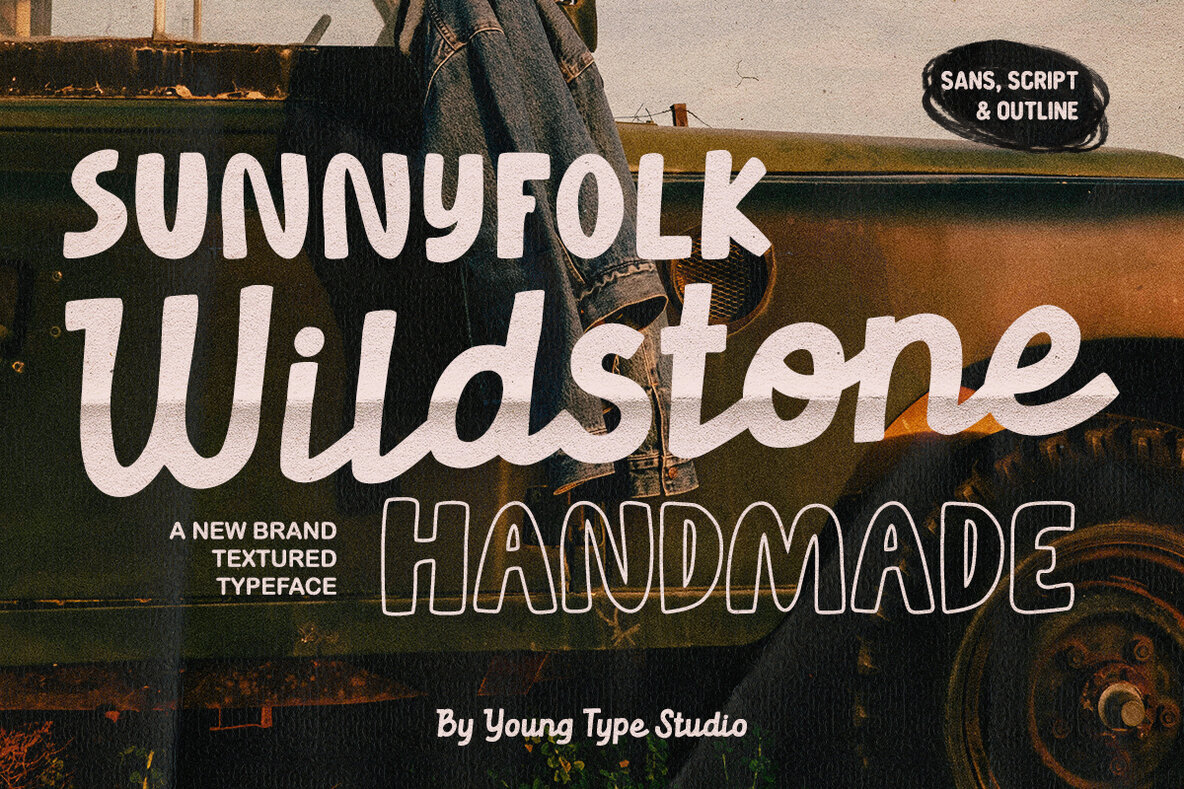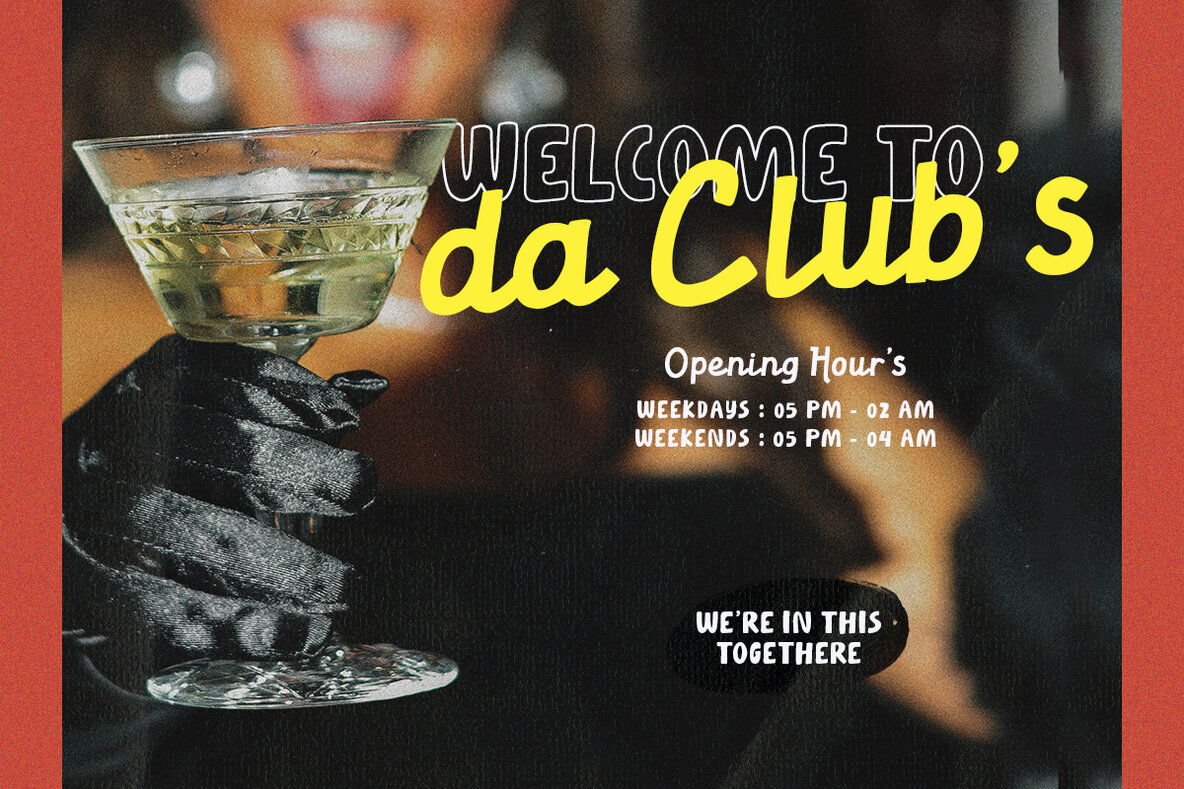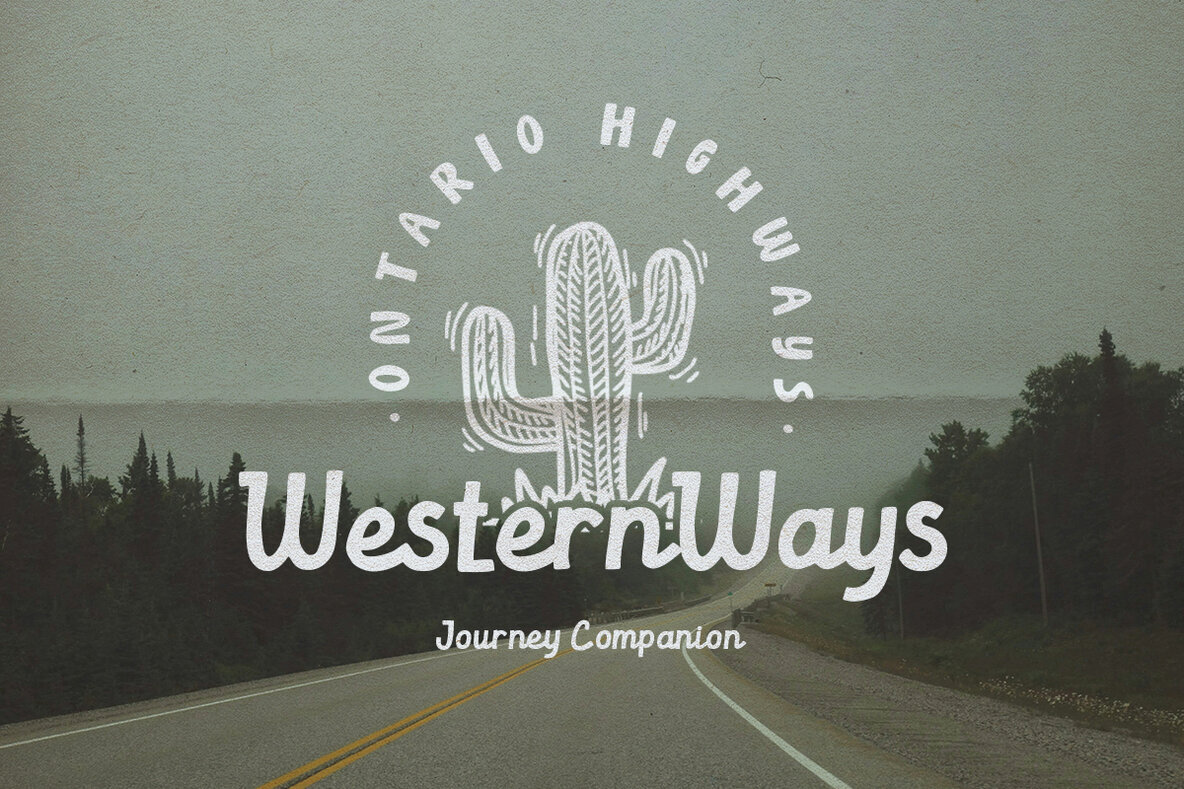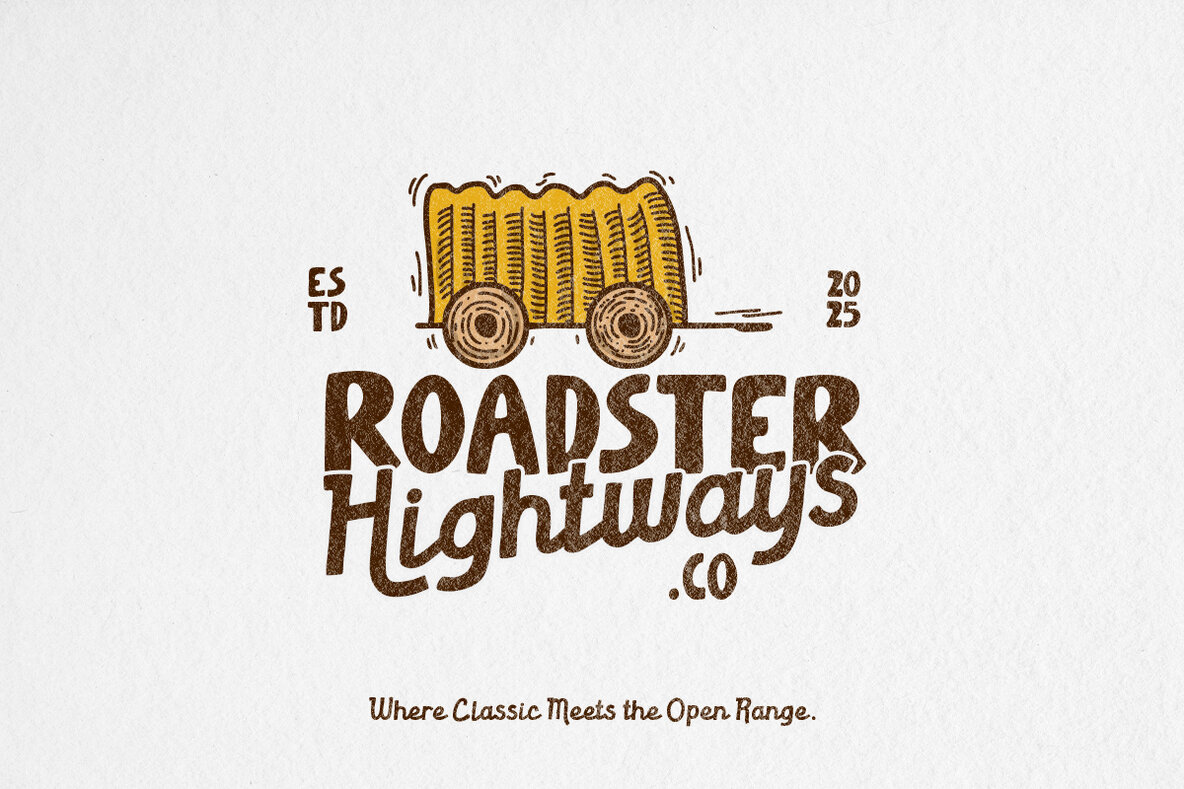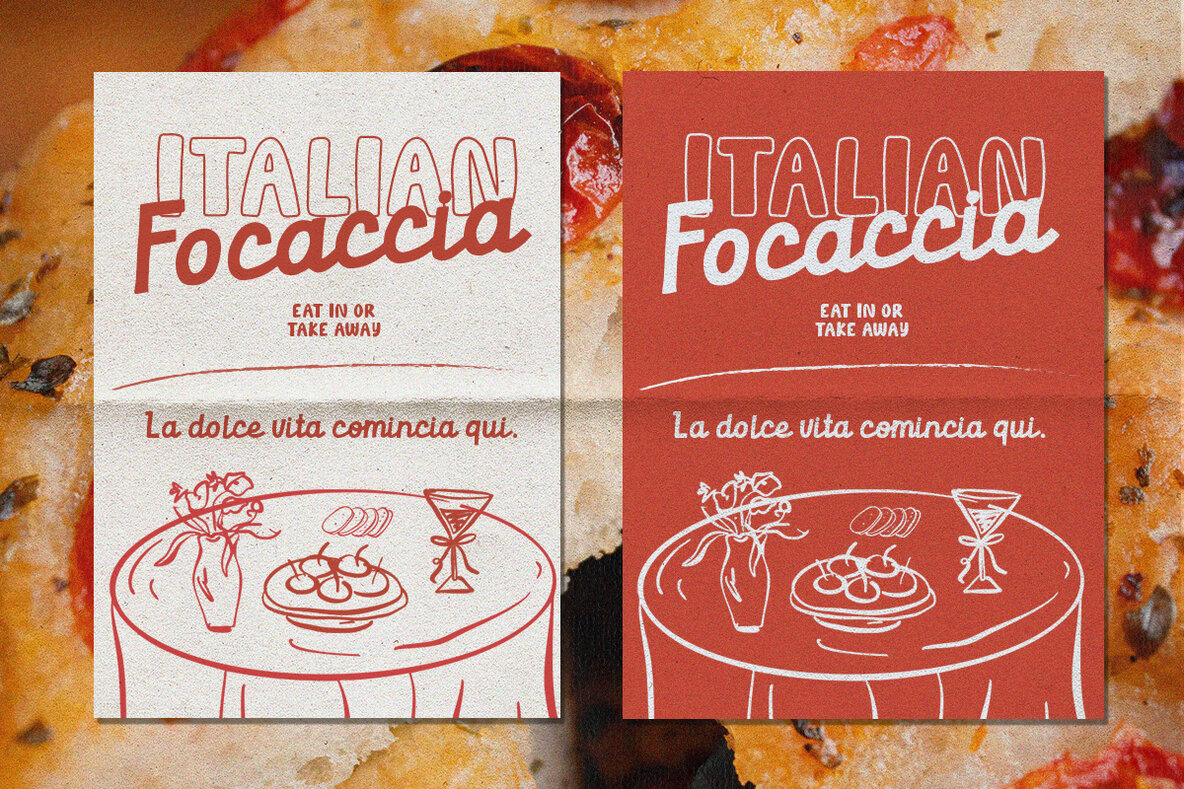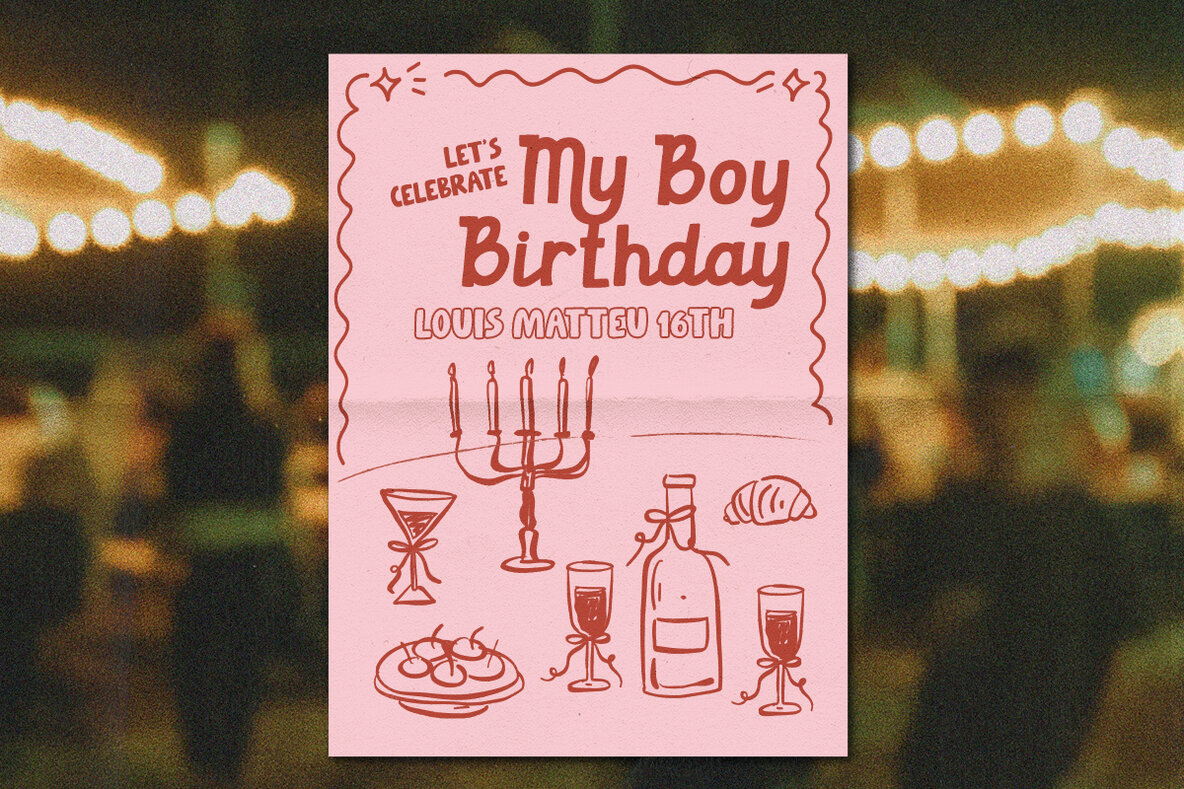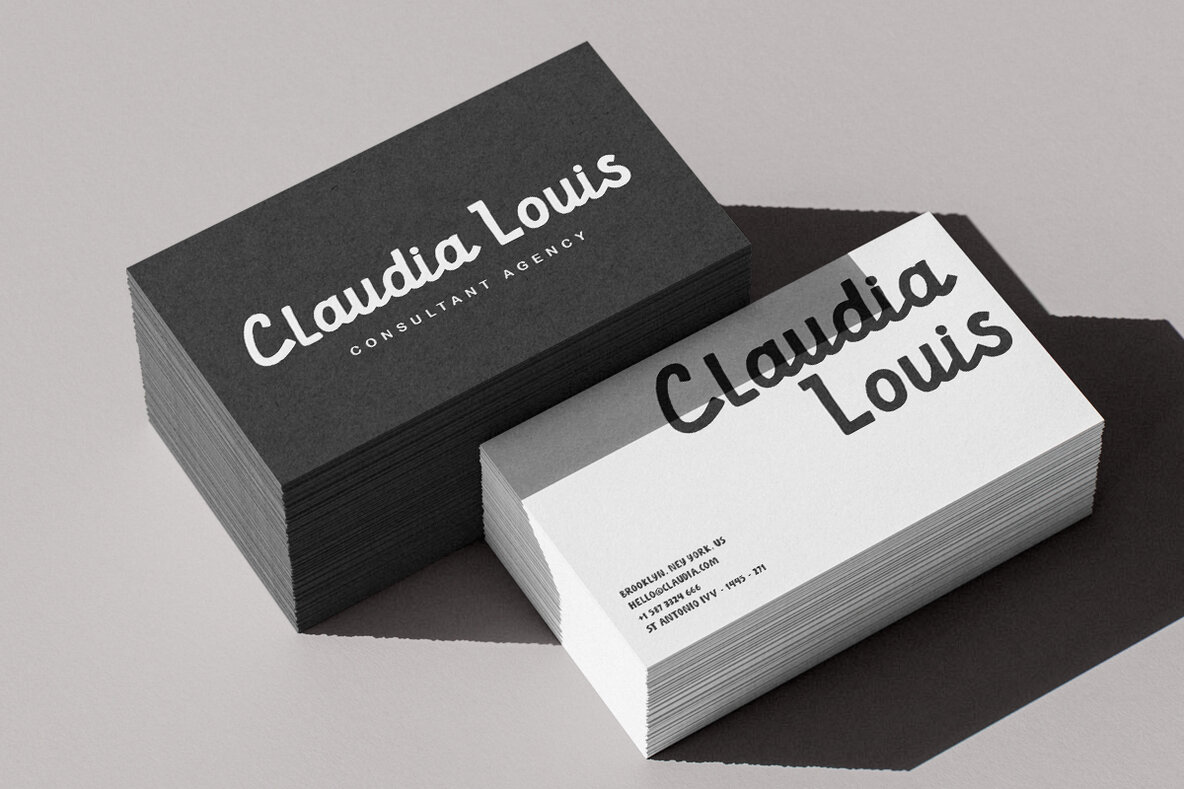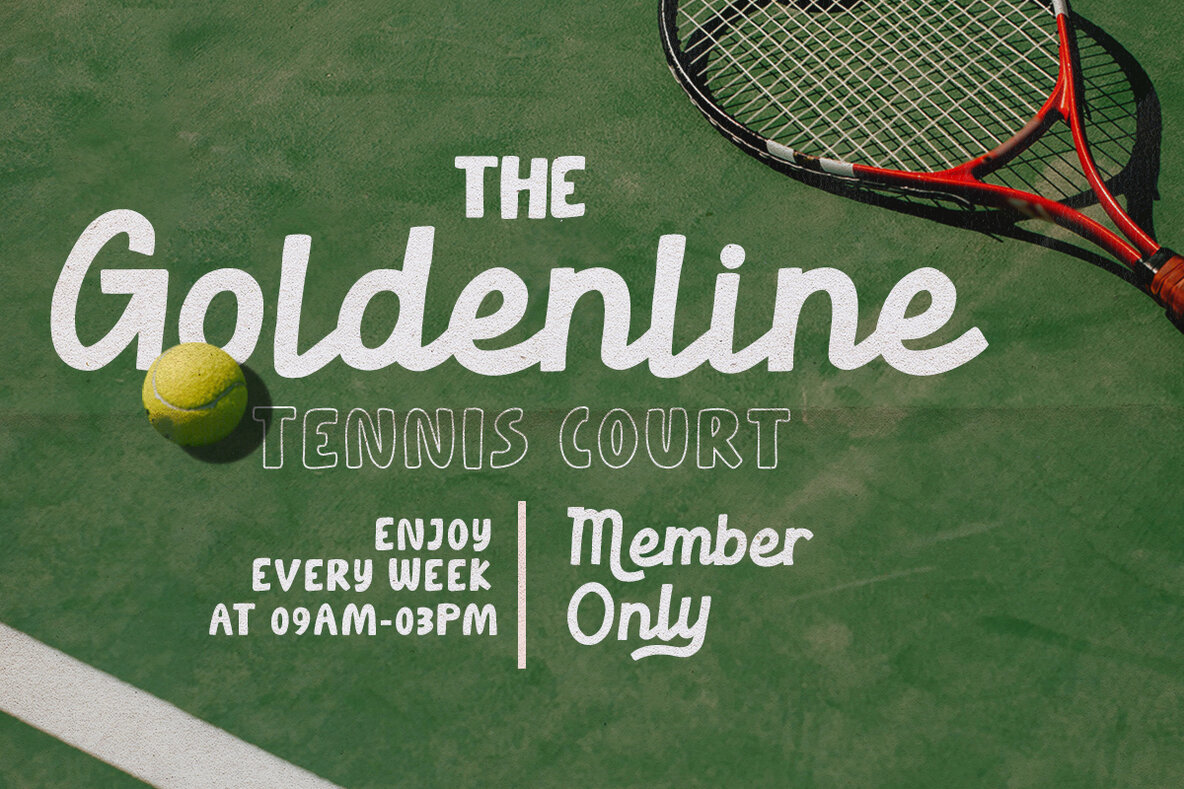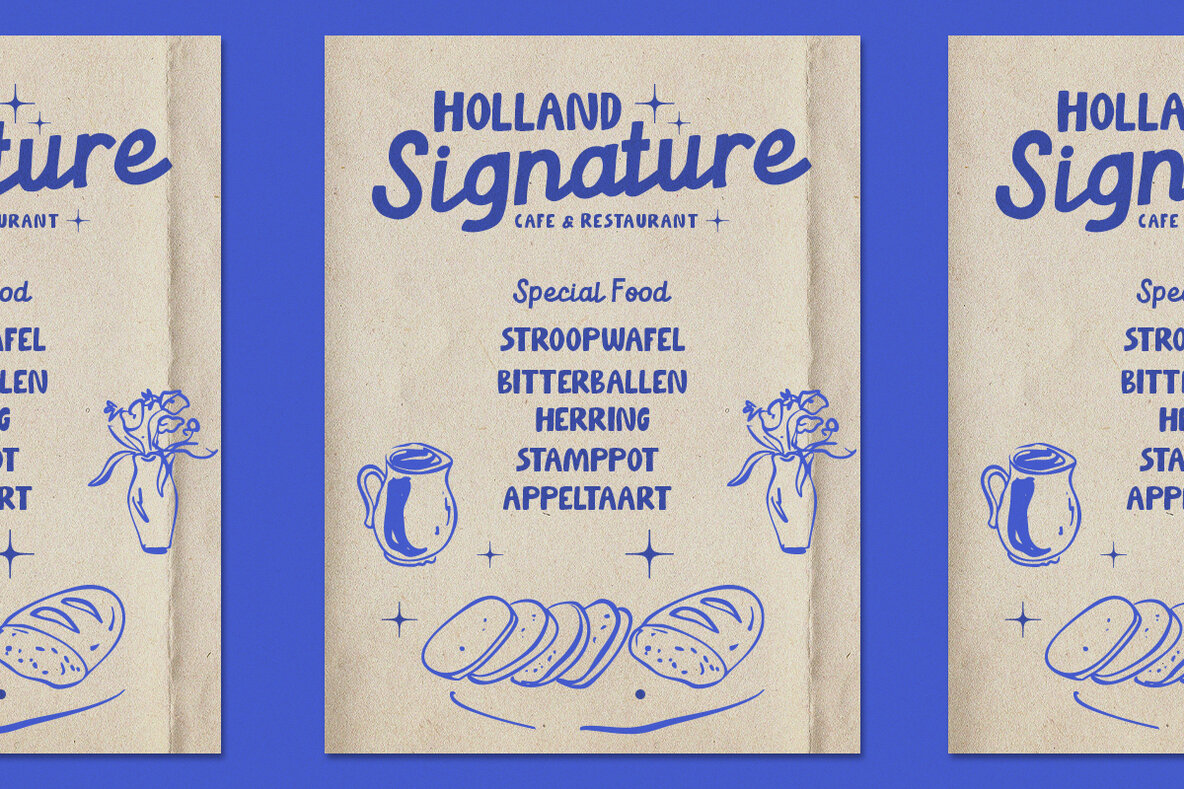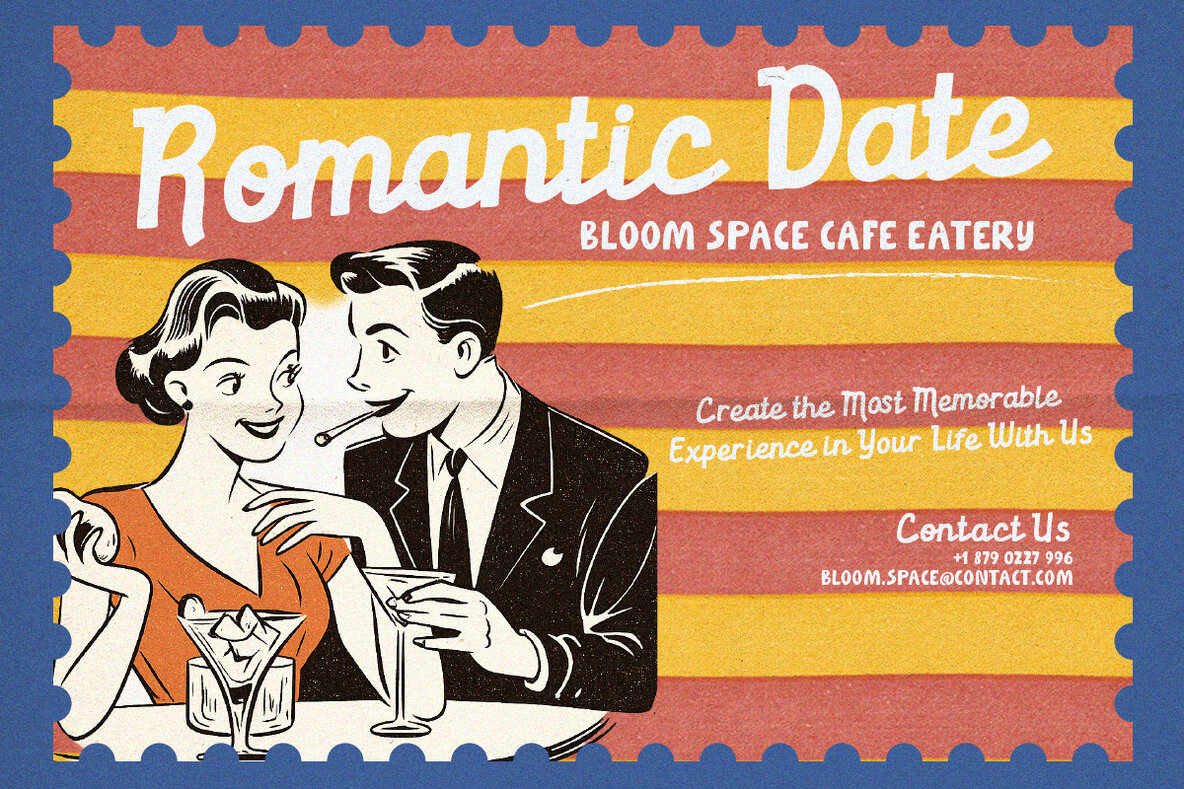
Sunnyfolk Wildstone Font
Sunnyfolk Wildstone is a bold, handmade, and textured typeface from Young Type Studio. It stands out for its rustic and friendly aesthetic, making it ideal for vintage or outdoor-themed branding. This typeface includes a flowing, chunky Script style, seen in 'Wildstone', a complementary rounded bold Sans style, exemplified by 'SUNNYFOLK', and a casual Outline style showcased in 'HANDMADE'. These elements come together to create a versatile display face suitable for projects that call for a warm and organic hand-drawn feel. Features:Sunnyfolk Wildstone: Rustic Typeface for Outdoor Branding